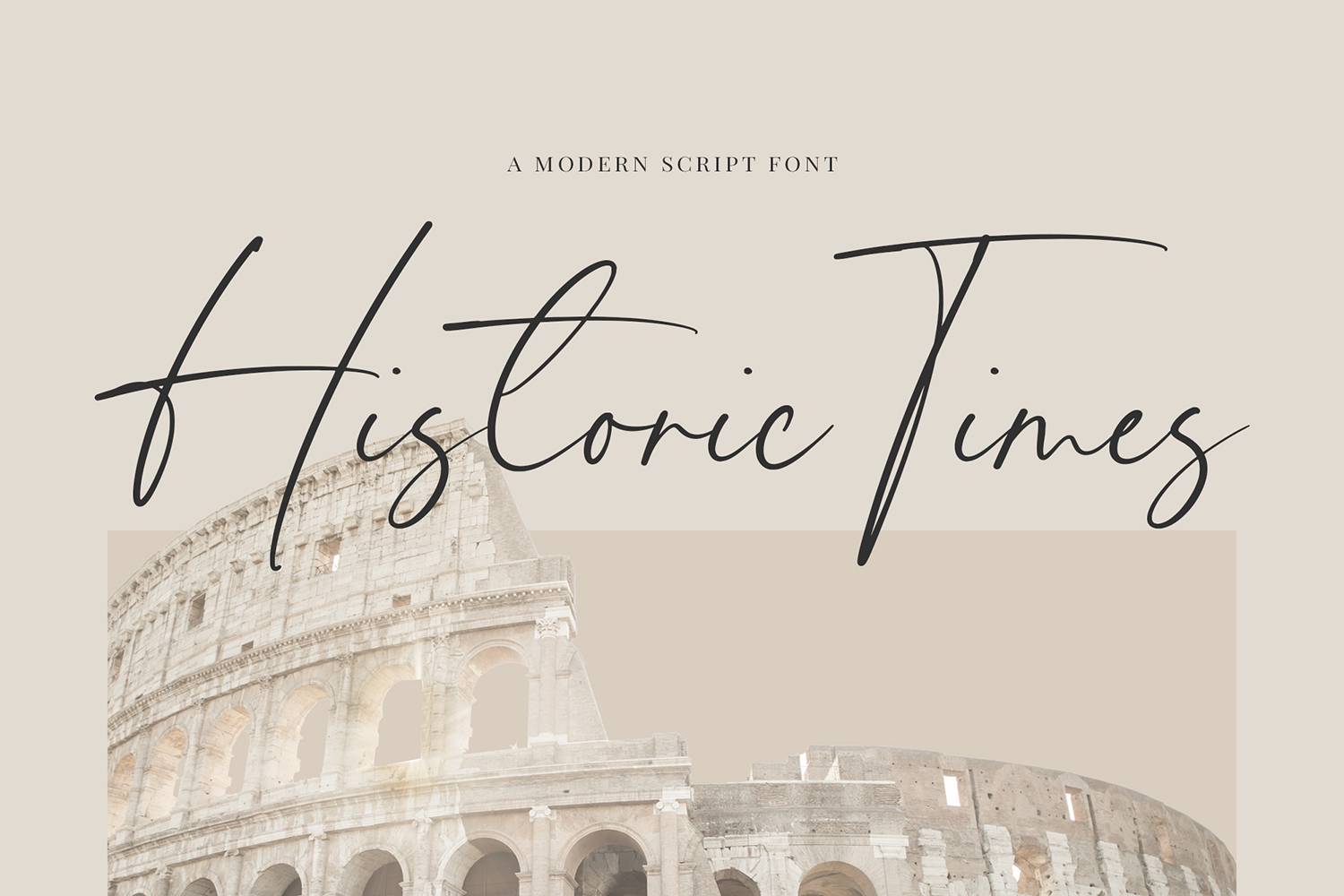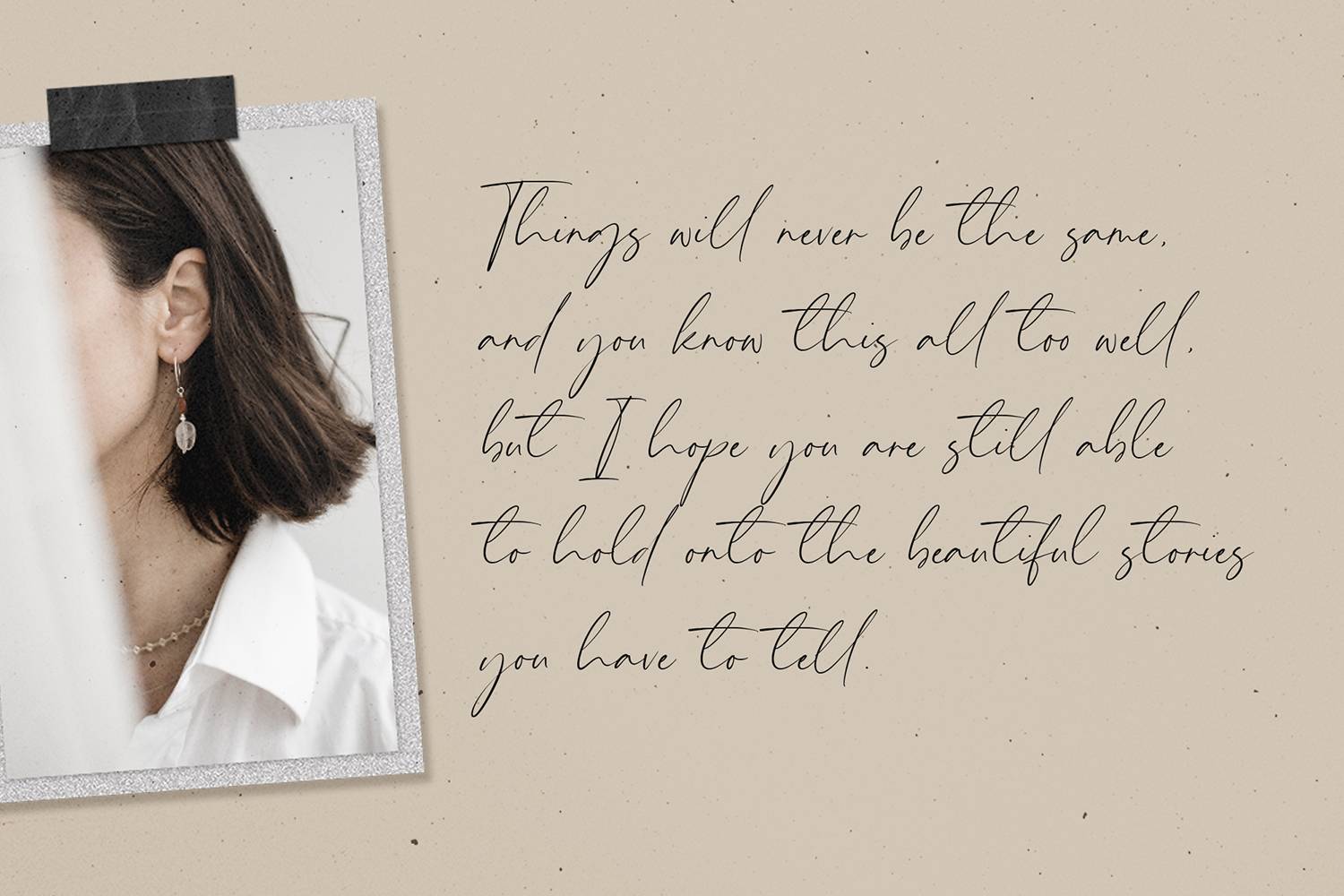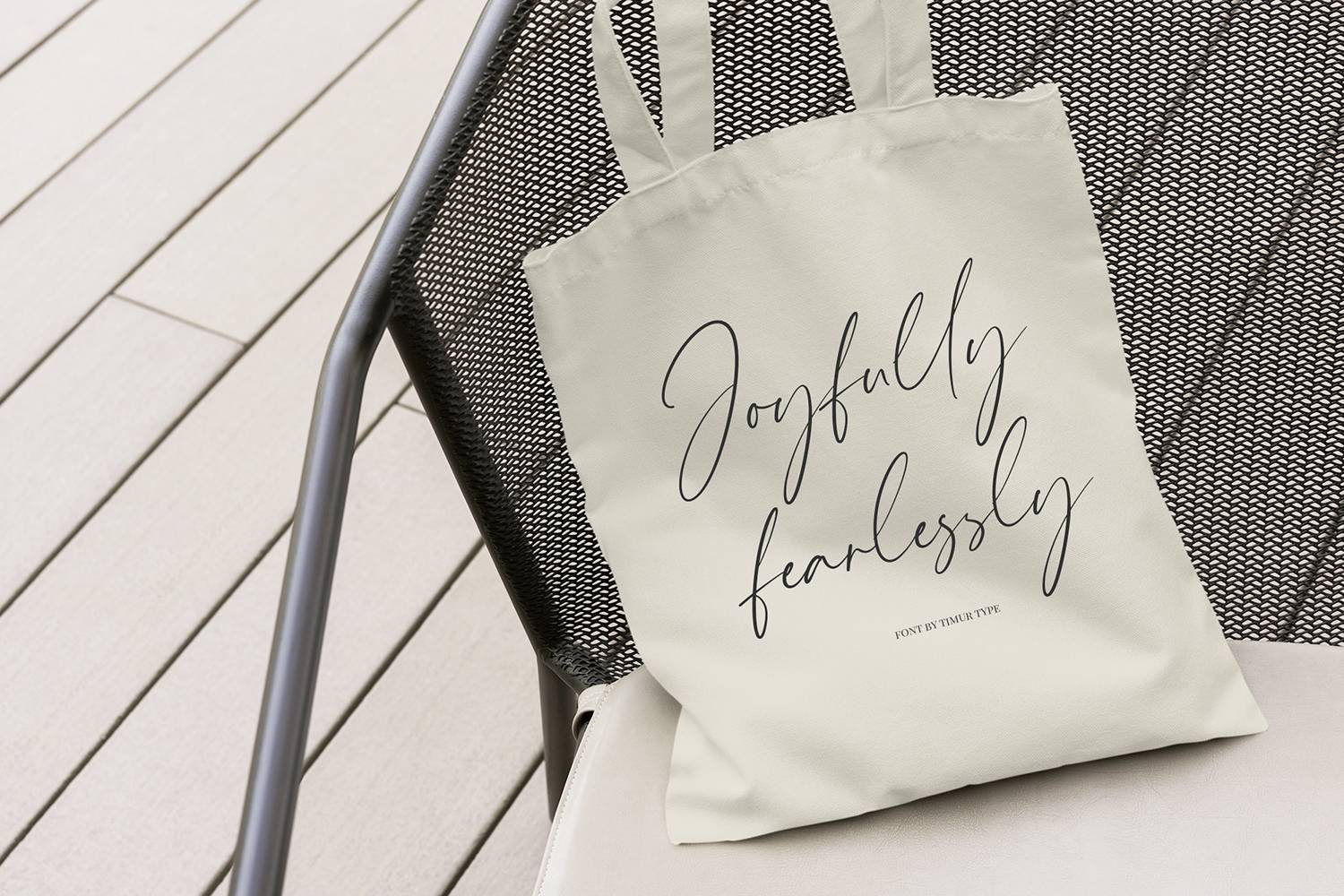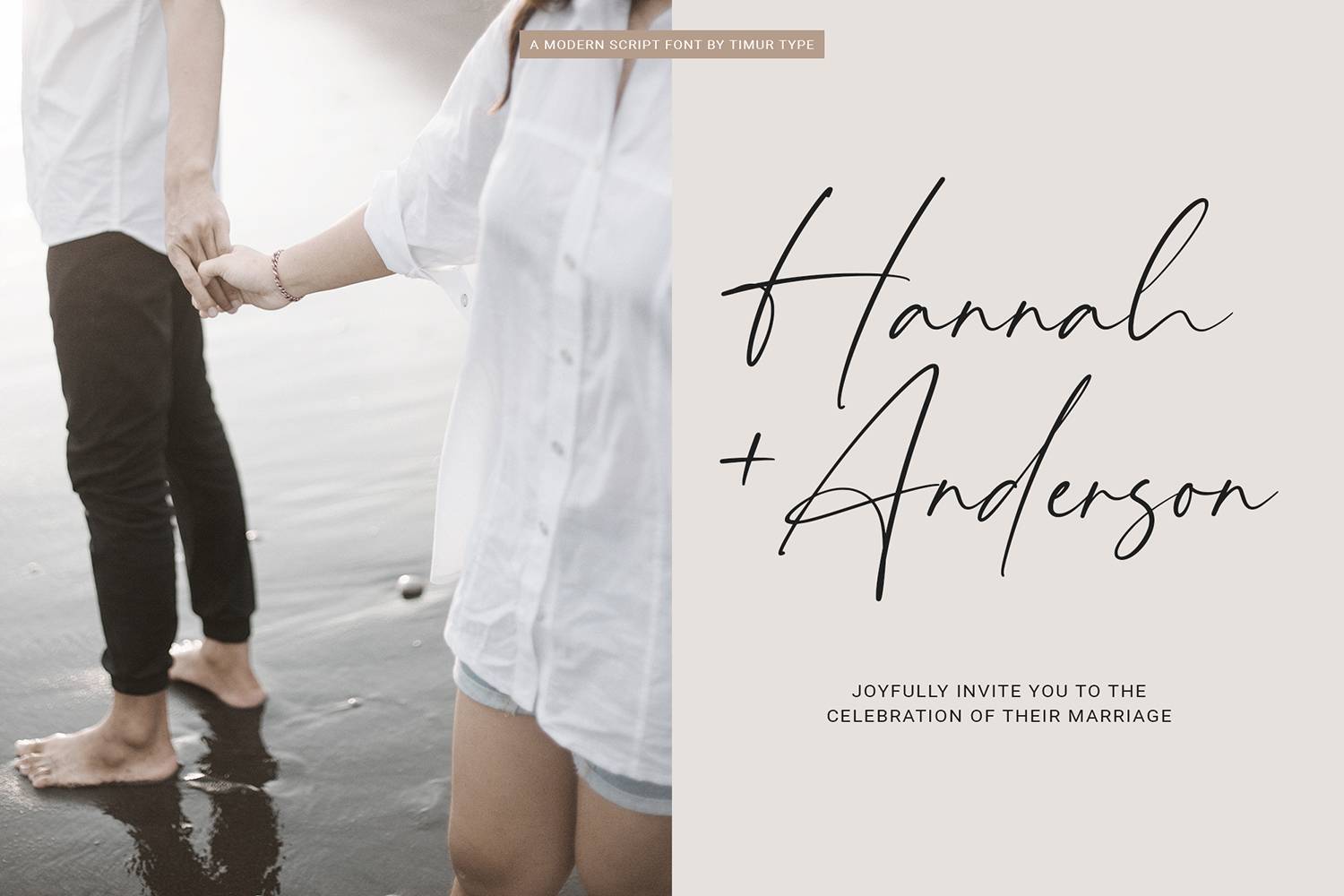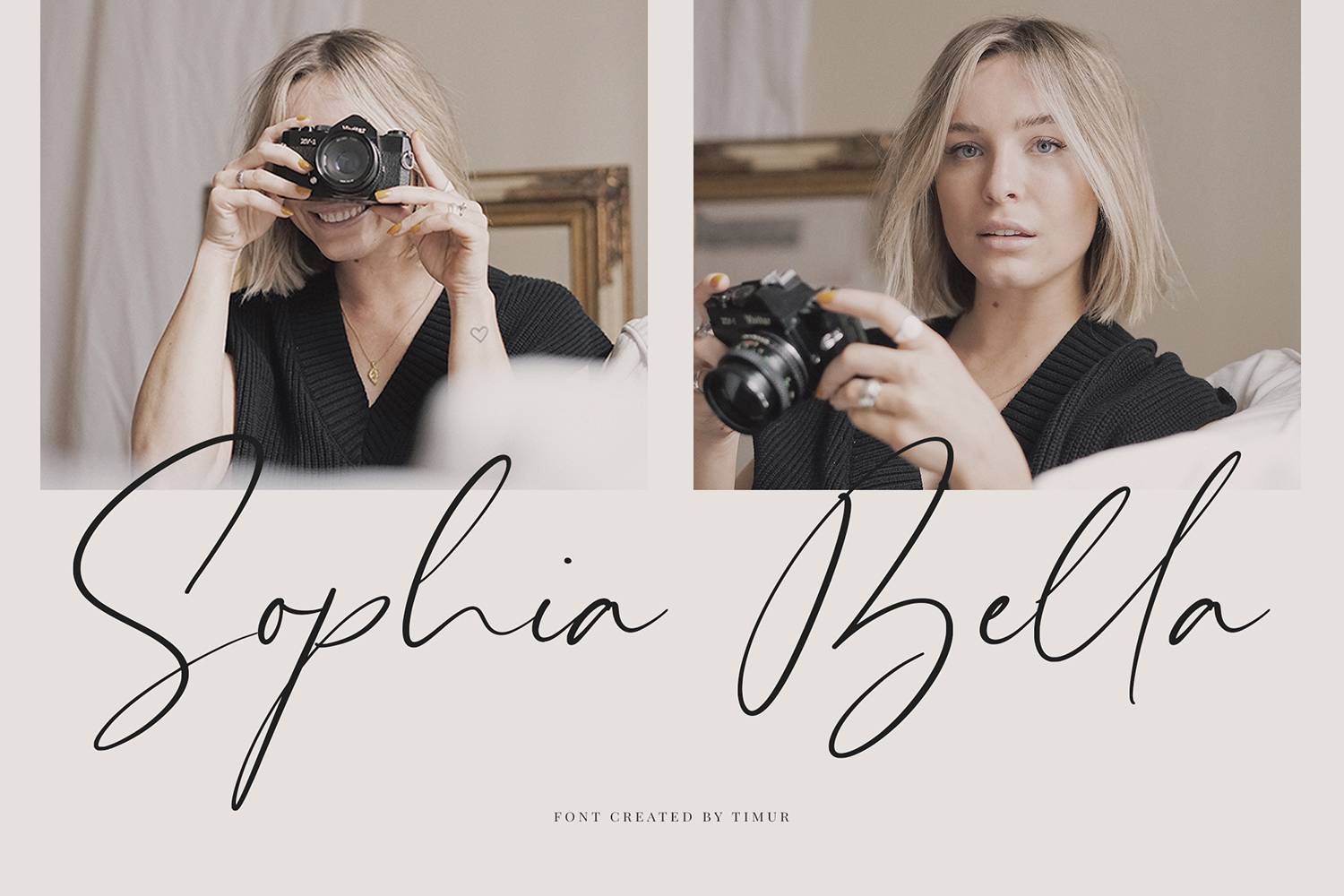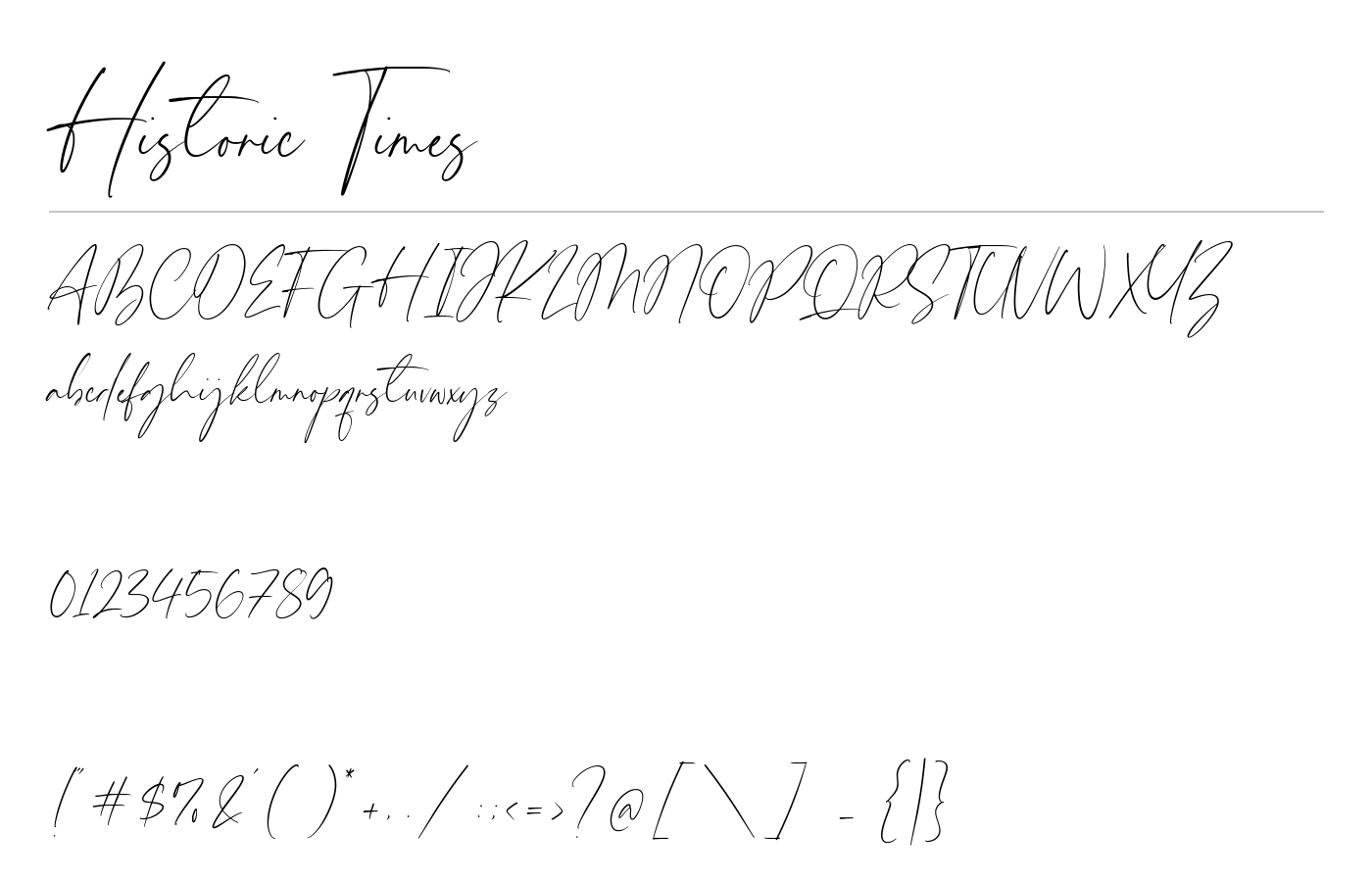
Historic Times is a delicate, handwritten script font that features thin, flowing strokes and an elegant, airy feel. Its tall, slender letterforms with a slightly casual yet refined style make it ideal for adding a personal, sophisticated touch to invitations, branding, and editorial designs. This font works best in expressive, upscale projects where a charming and graceful handwritten look is desired.
Historic Times Font
About Historic Times Font